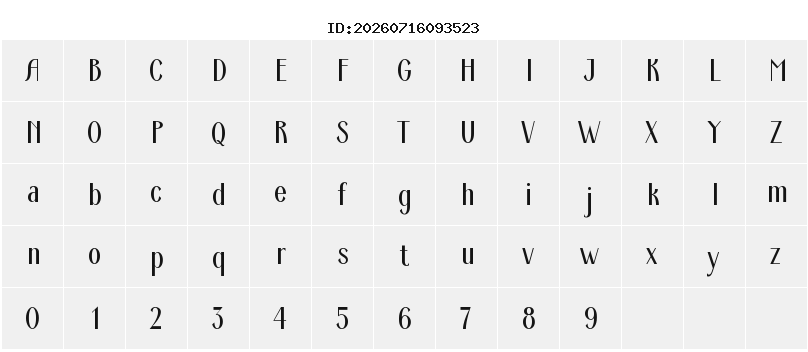
Ardeco Preview
• Font Name: Ardeco
• Full Font Name: Ardeco
• PostScript Name: Ardeco
• Designer: Irina Chukina, Jovanny Lemonad
• Manufacturer: Irina Chukina, Jovanny Lemonad
About Ardeco.ttf
Ardeco.ttf is a modern, elegant sans-serif font designed for ultimate readability and visual harmony. Perfect for branding, headlines, web design, and print materials.